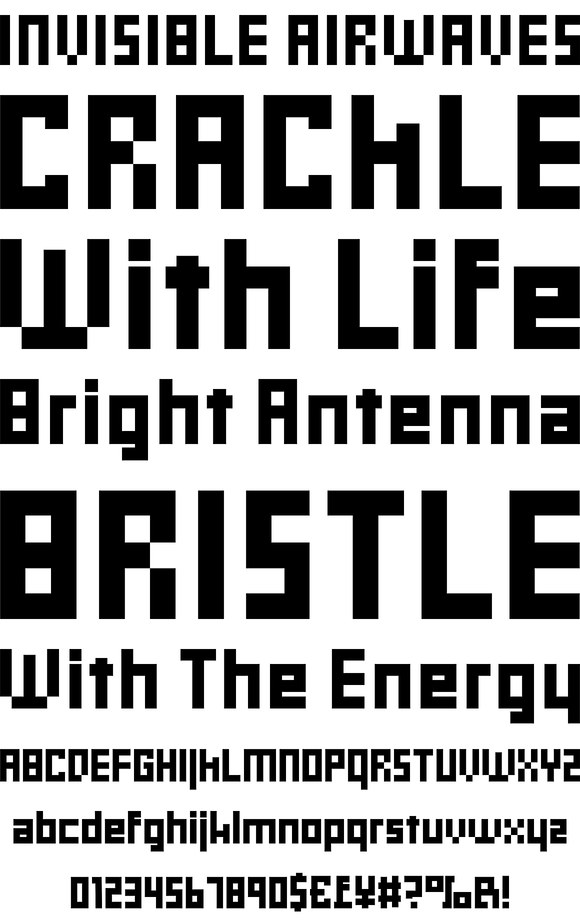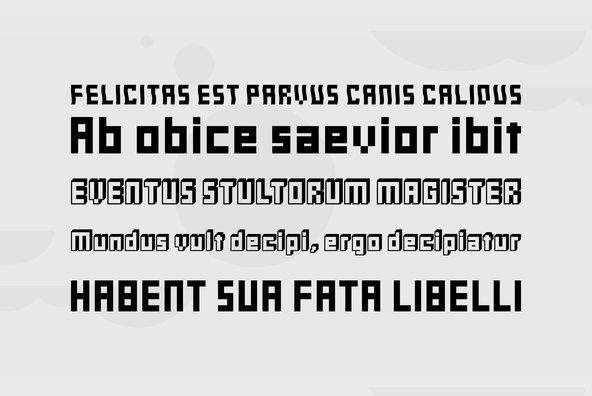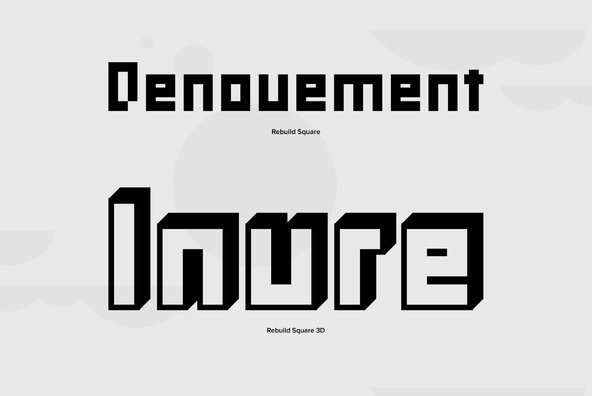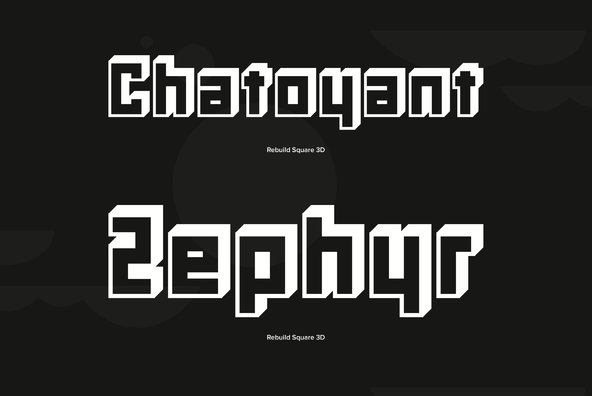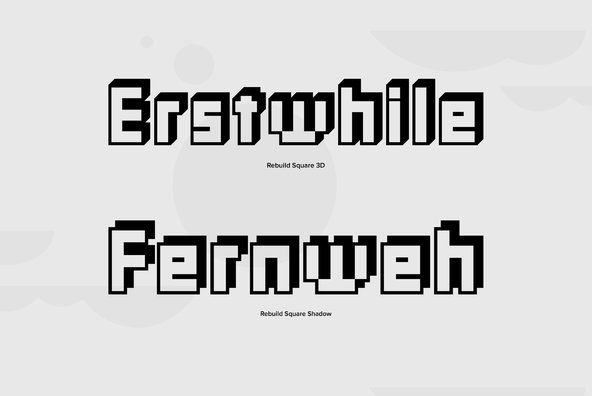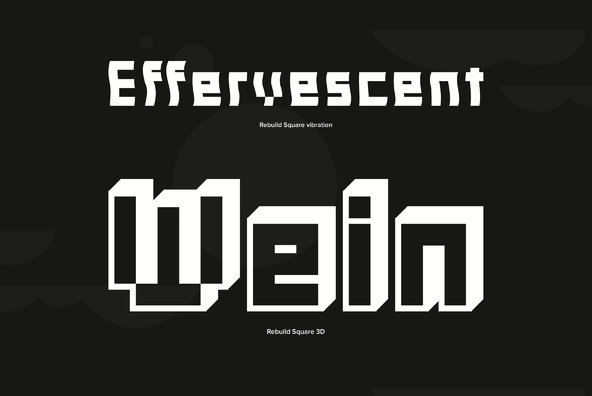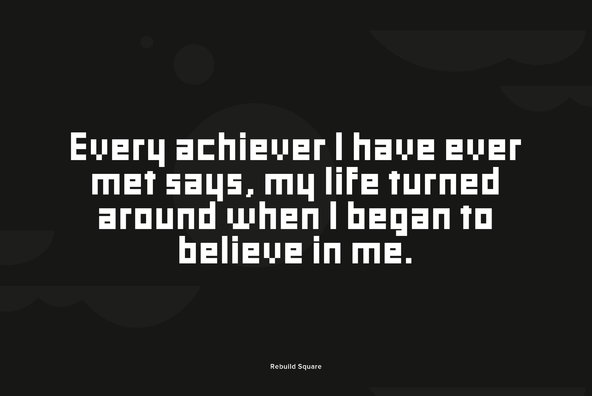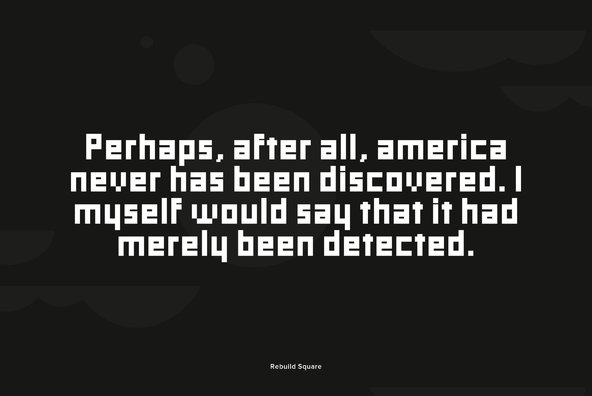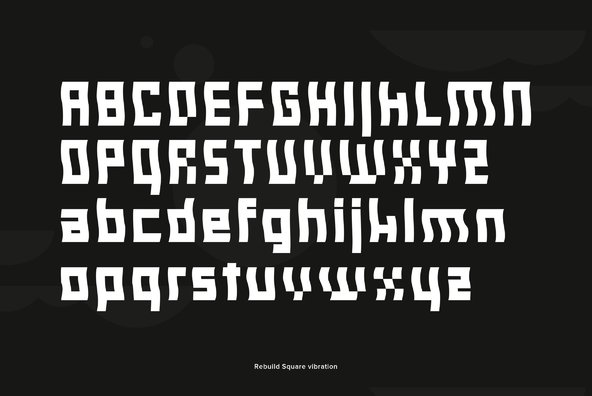
Rebuild
Foundry: Shuji Kikuchi / sugargliderz
Rebuild was designed as a tool to assemble the building blocks of the quadrangle. This font has four styles; square, three dimensional, shadow and vibration. These styles were made by the association of the building blocks.